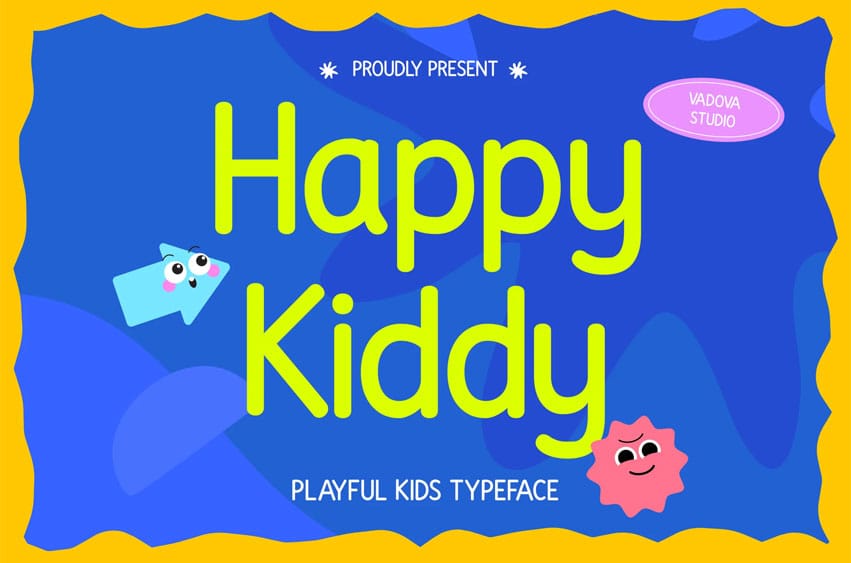
Happy Kiddy Font Playful Kids Font is a cheerful kids display typeface crafted with fun, softness, and readability in mind. Featuring rounded letterforms, friendly proportions, and quirky character shapes, this font is perfect for early-age visuals and playful communication. Ideal for children’s books, school posters, toy packaging, educational games, birthday invitations, and daycare branding, Happy Kiddy brings joy and clarity to any creative project.
The font speaks directly to creative industries looking for children’s books, kids posters, school projects, toy packaging, educational games, birthday invitations, classroom decor, daycare branding, cartoon titles, learning apps, flashcards, kids menus, storybooks, stickers, product labels, animated videos, social media posts, book covers, preschool signage, playful logos